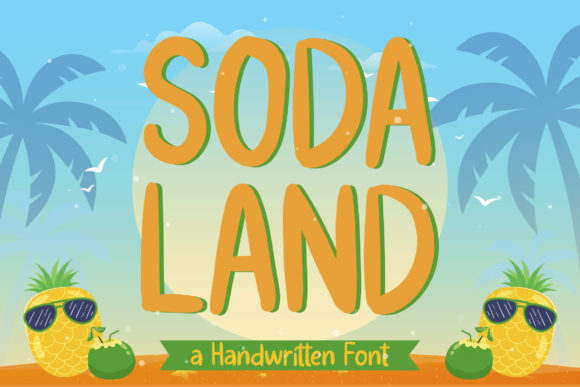
Prepare yourself to be transported to a realm of effervescent typography with the Soda Land Font! This whimsical display font will infuse your designs with the carefree spirit of summertime.
Crafted by the talented TypeFactory, Soda Land dances across the page with its irresistibly playful characters. Each letter exudes a youthful exuberance, as if it were a cheerful bubble floating through the air. This font is the perfect accompaniment to any design that seeks to evoke a sense of joy, optimism, and nostalgia.
Picture this: your party invitations will sparkle with an extra touch of cheer, your swimming gathering announcements will practically invite guests to dive into the fun, and any design you grace with Soda Land will radiate a playful charm that's as refreshing as a cold drink on a hot summer day.
But wait, there's more! Soda Land isn't just a pretty face; it's also incredibly versatile. Use it to add a pop of personality to your social media posts, bring your website to life, or create eye-catching marketing materials that will make your brand stand out from the crowd.
With Soda Land Font, the possibilities are as endless as a summer day. Its bubbly characters will add a touch of whimsy and fun to any project, making it the perfect choice for designers, crafters, and anyone who wants to sprinkle a little extra joy into their world.
So, go ahead, dive into the refreshing waters of Soda Land Font and let your designs fizz with personality!